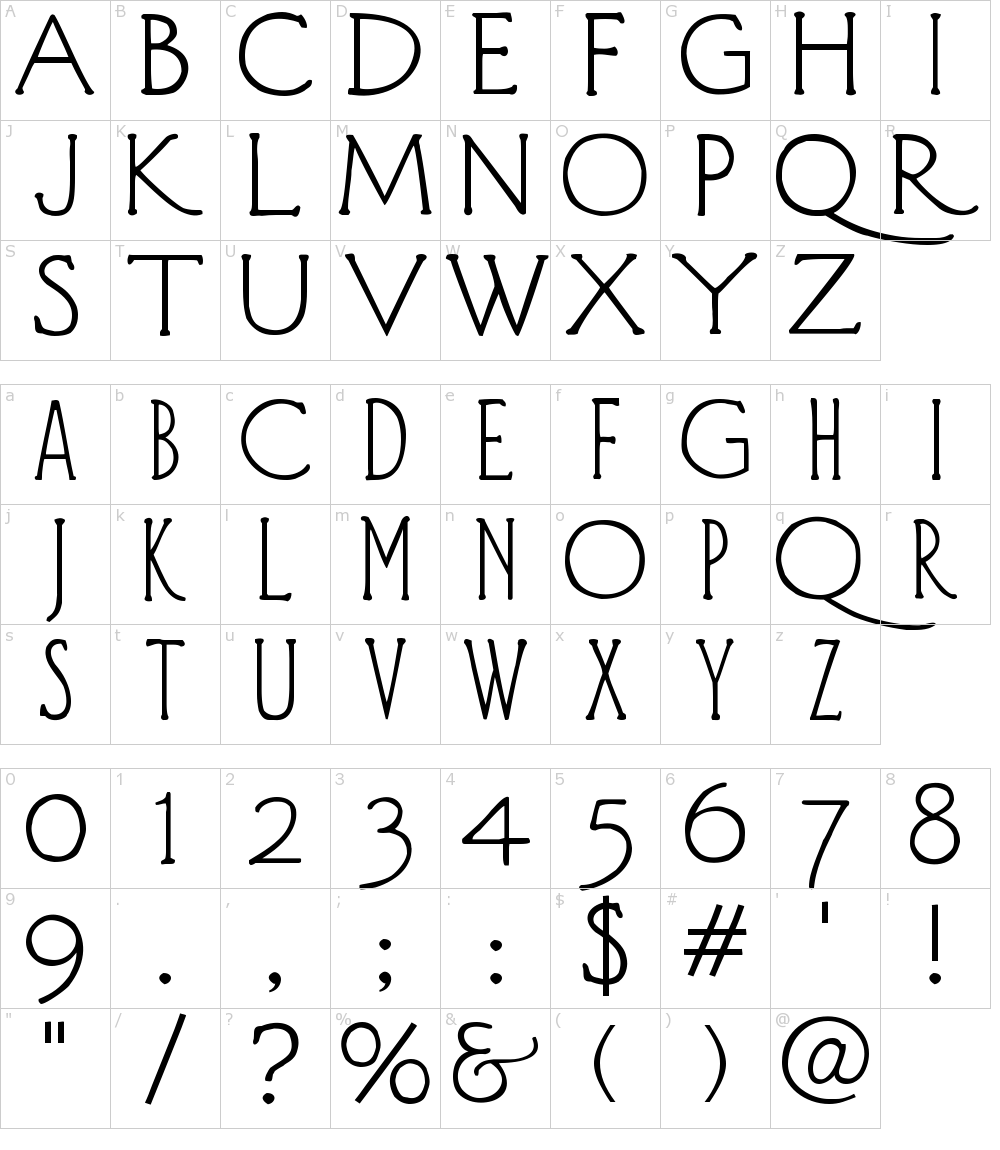
Art Nouveau Font Generator
It was hand drawn with a brush pen. 18 art nouveau fonts for truly elegant designs. The style evokes a sense of elegance, jazz, or luxury and is great for fashion and jewelry.
Viscamonta Is An Elegant Serif Font Inspired By The Early Art Nouveau Fonts And Brings The Essence Of The Modernist Typography Of The 1910S.
Elodie Is Designed For Titles, Short Quotes, Product Names Etc.